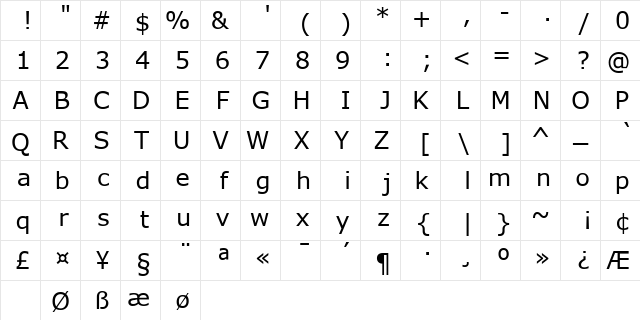
VerdanaMono Regular
Design Context for VerdanaMono Typeface
VerdanaMono brings the precise, column-aligned rhythm of monospaced typography to designs that value technical clarity and systematic order.
Well-suited to data-driven dashboards, coding tutorials, and any design that wants to reference the world of programming.
Pro Tip: Use VerdanaMono with slightly increased line-height for extended reading — fixed-width spacing can feel dense in longer passages without extra breathing room.